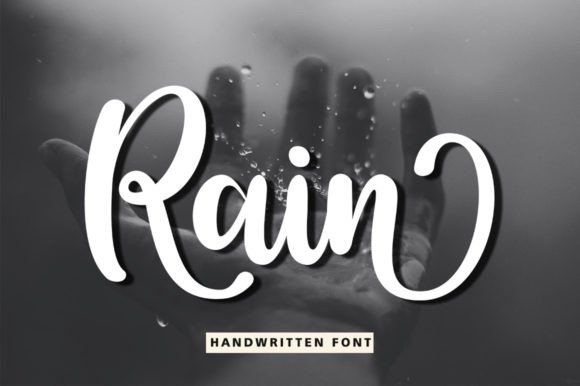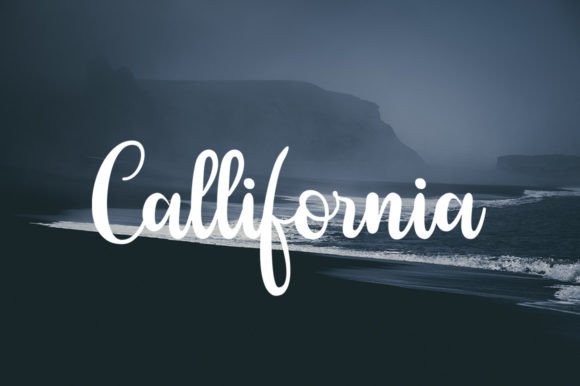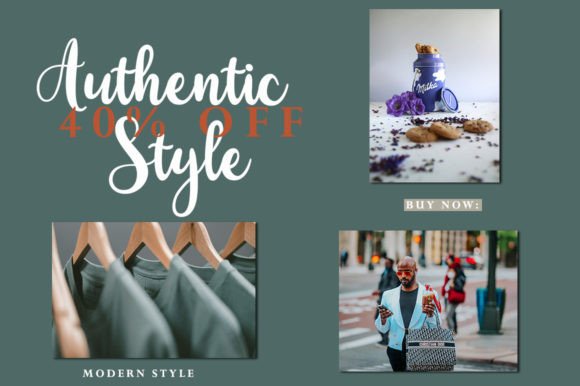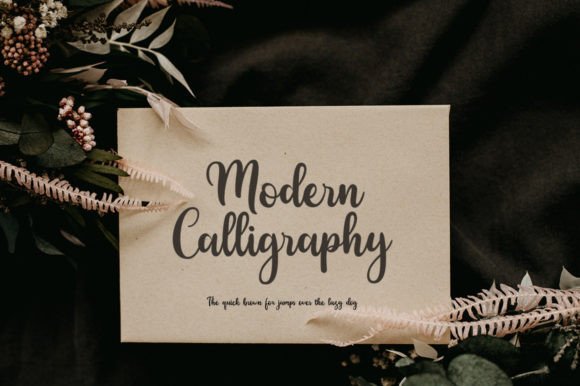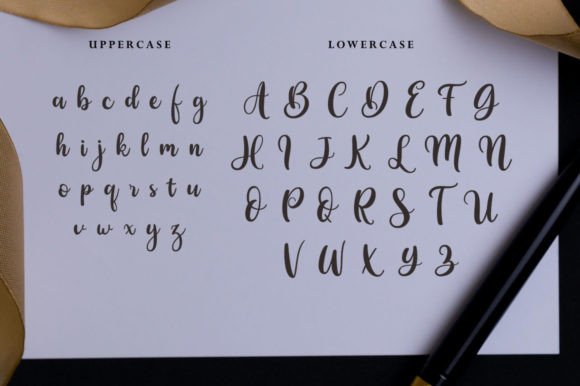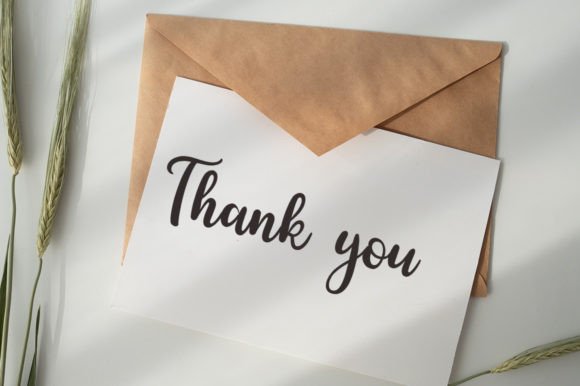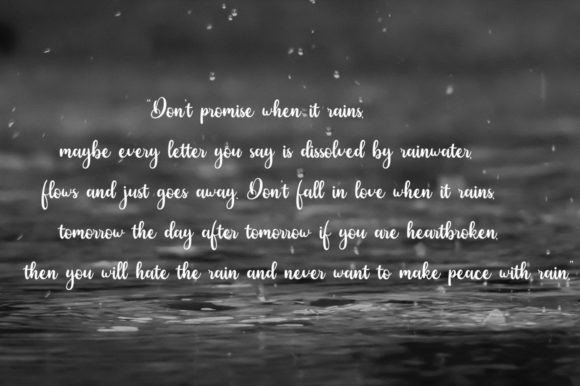
Rain Font
About Rain Font
“Rain” is not just a font; it’s a fun and friendly handwritten script that adds a delightful touch to any design. With its unique charm, this font has the power to turn any design idea into a true standout. Get inspired by the playful and inviting nature of “Rain” and create lovely designs that capture attention and spread positivity.
The fun and friendly demeanor of “Rain” is immediately evident in its handwritten style. Each character exudes a sense of playfulness, making it a perfect choice for designs that aim to be approachable and engaging. Whether used in digital graphics, print materials, or any other creative project, “Rain” infuses a lighthearted charm.
The uniqueness of “Rain” lies not just in its individual characters but in the overall vibe it imparts to your designs. It becomes a visual element that sparks joy and creativity. Consider using it in projects that aim to convey a sense of friendliness, whimsy, or a carefree spirit.
Imagine “Rain” gracing a children’s book cover, adding a touch of playfulness and inviting young readers to explore the pages. Picture it in social media graphics, where its friendly handwritten style creates a connection with the audience. This font is designed to be a source of inspiration for creating designs that are not only visually appealing but also radiate positivity.
In summary, “Rain” is more than a font; it’s a creative tool that brings a fun and friendly touch to your designs. Let it be the choice that turns your ideas into standouts, spreading joy and creativity. With “Rain,” every project becomes an opportunity to create lovely and inviting designs that leave a lasting impression.